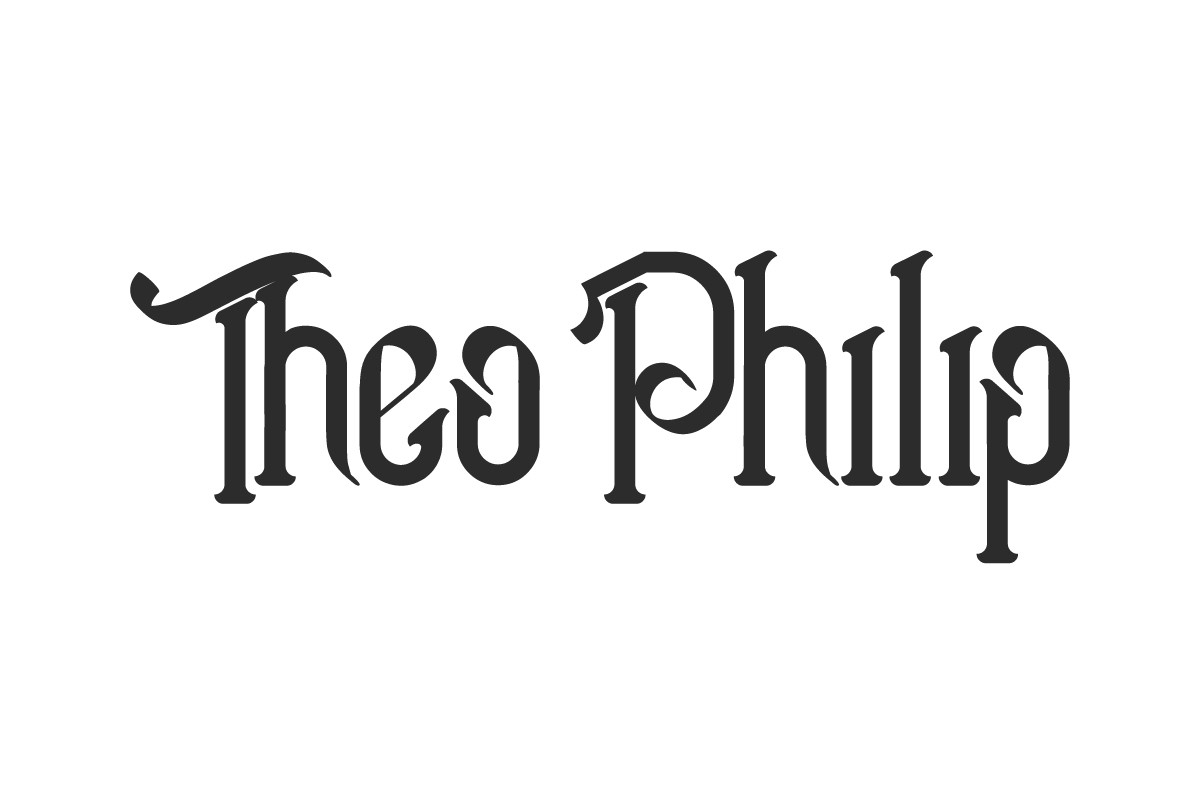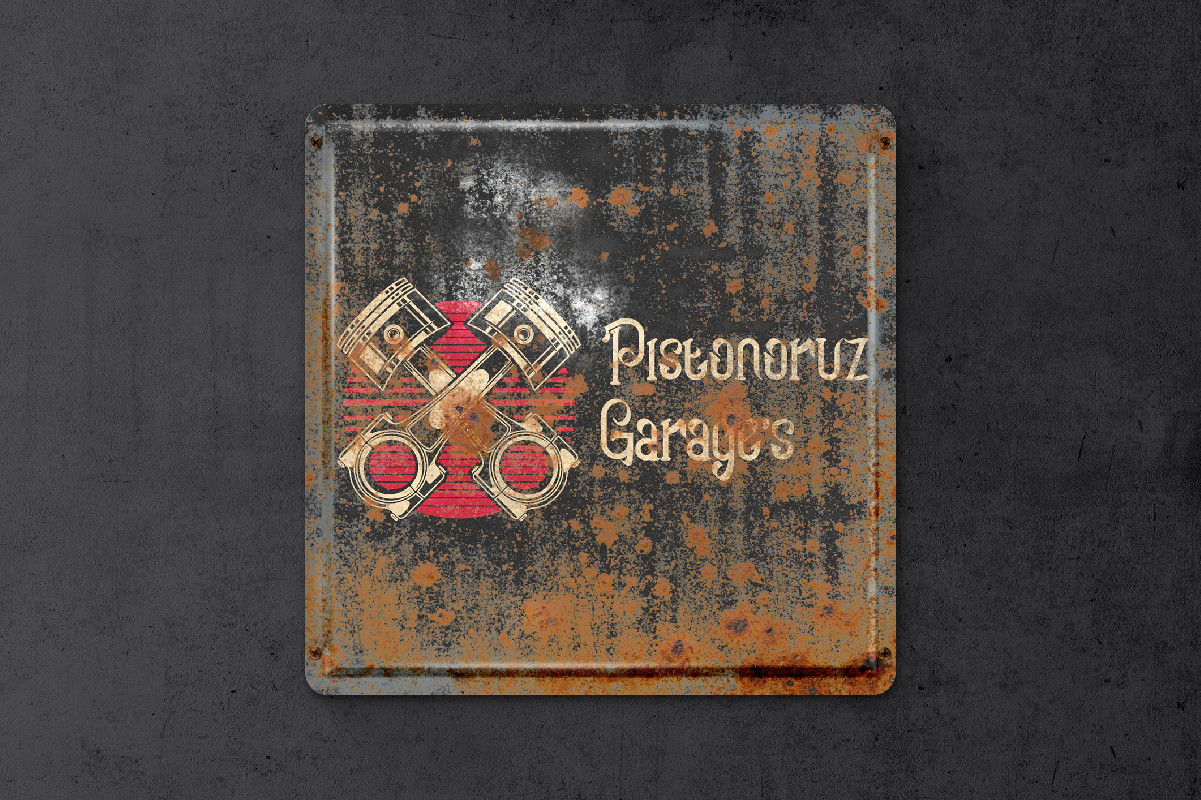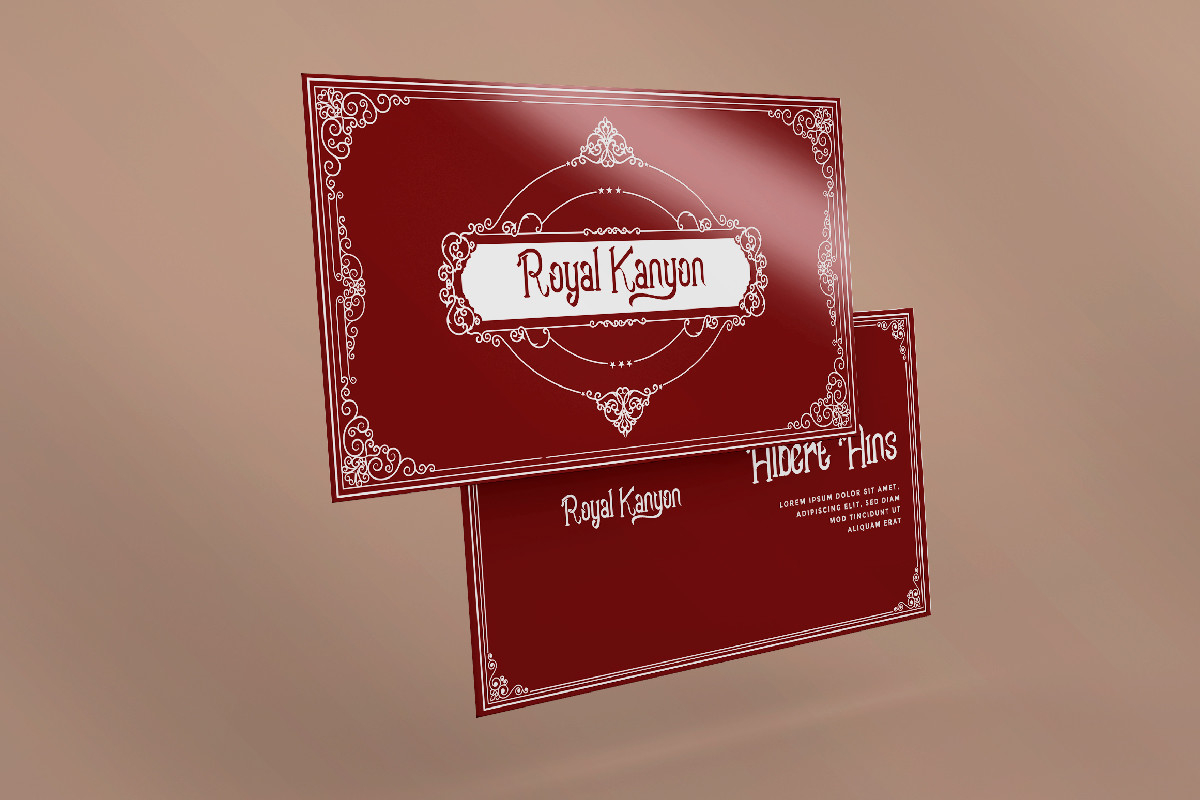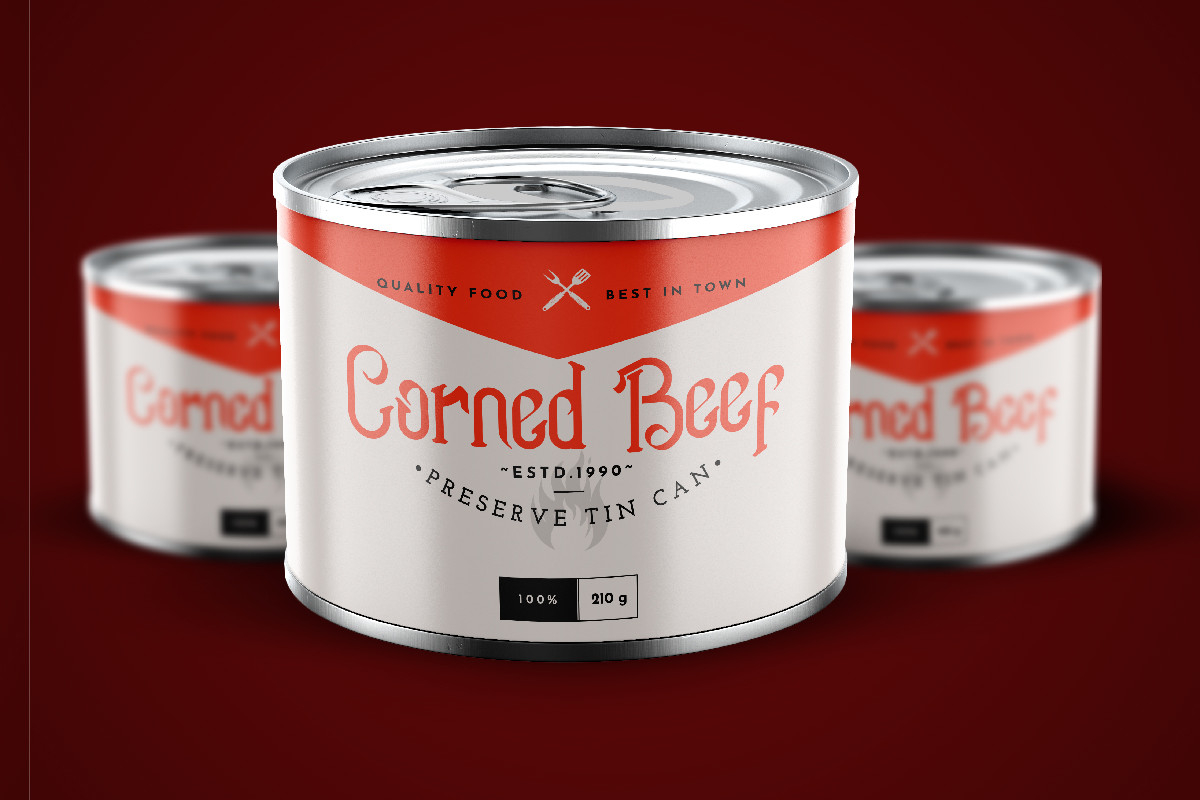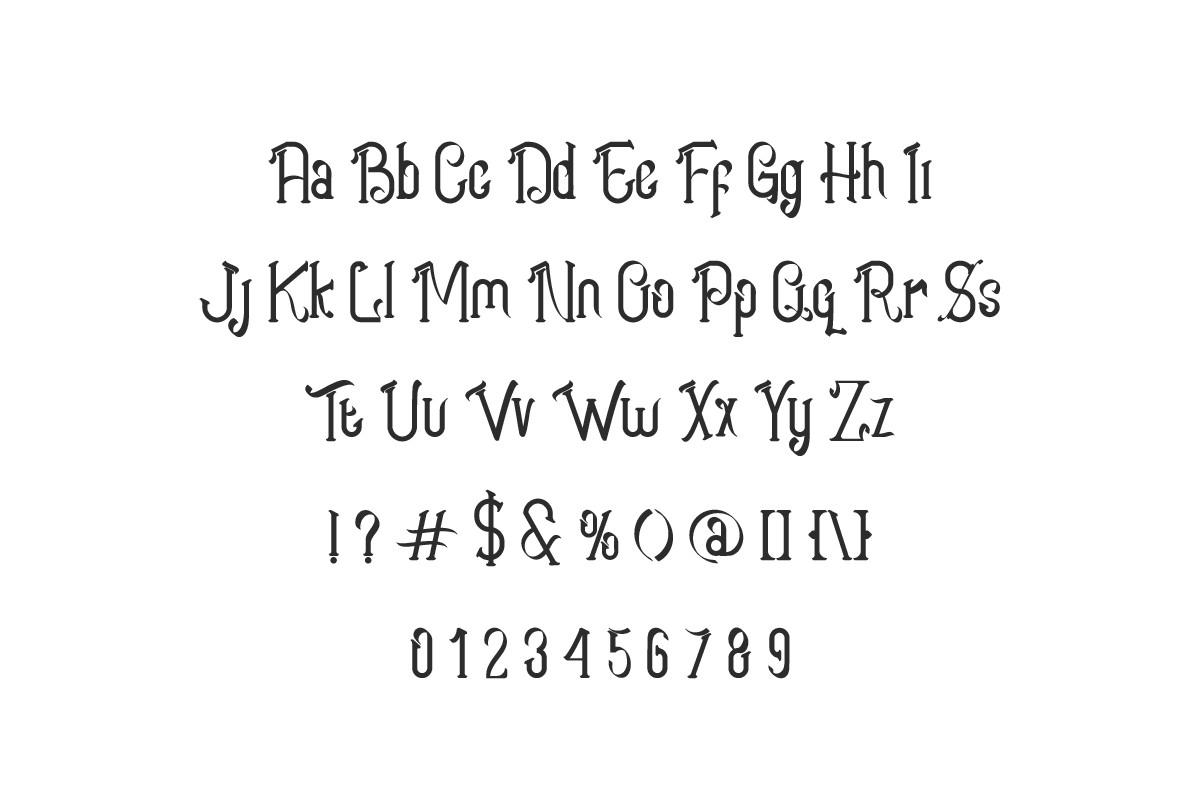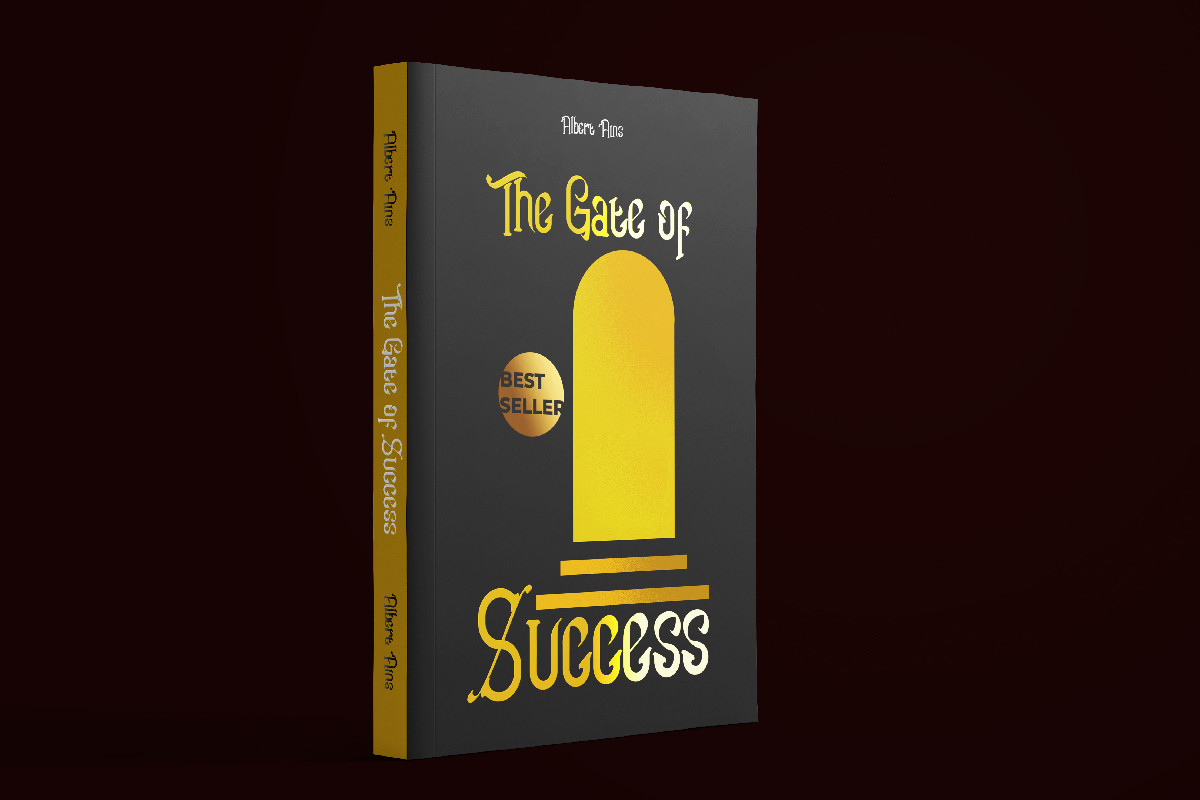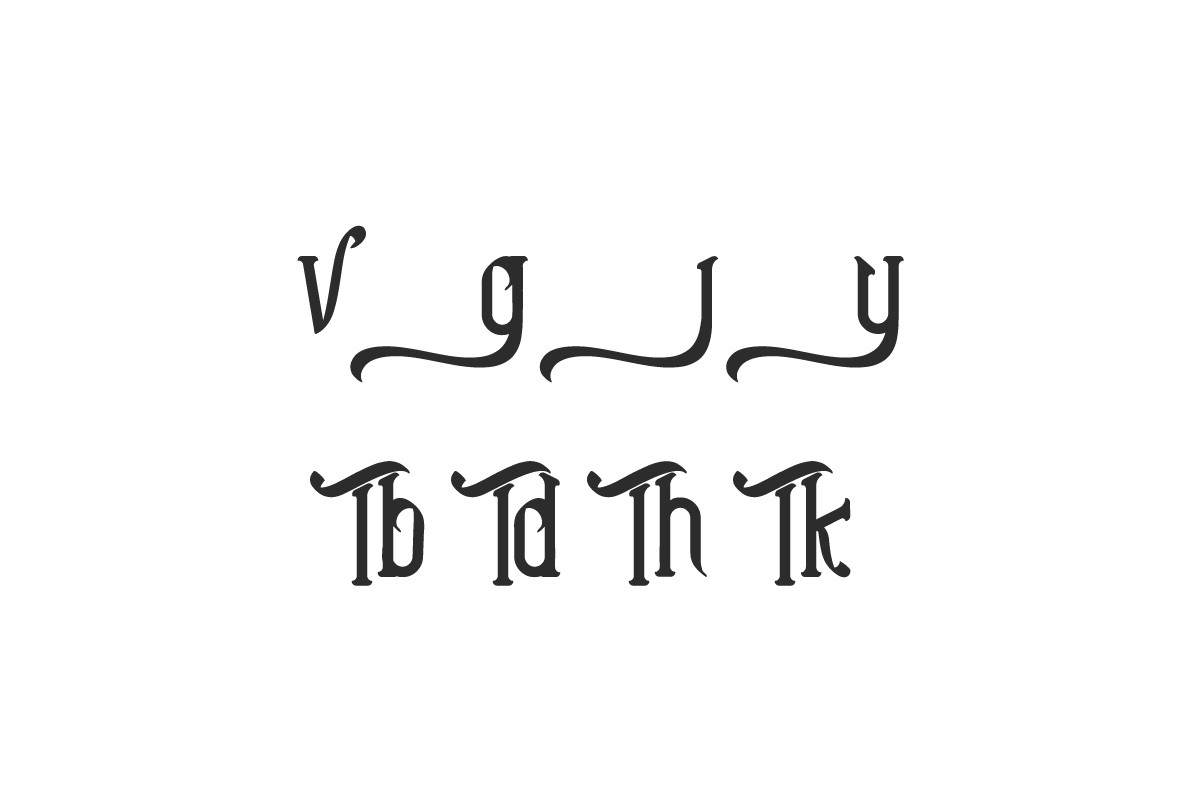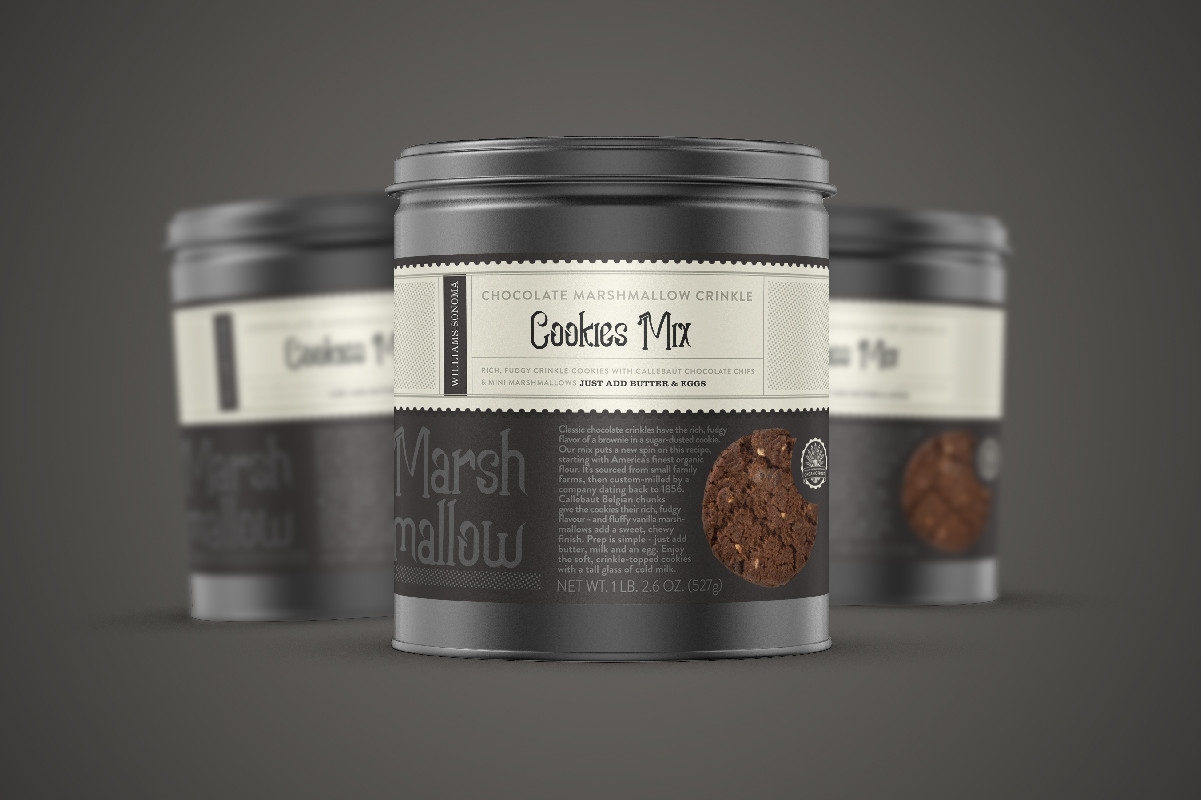
Theo Philip Font
About Theo Philip Font
Theo Philip is a stylish and imposing blackletter font, perfect for your wildest creative ideas! Its bold and impressive characters will elevate the appearance of any item, from product packaging to magazine titles and more.